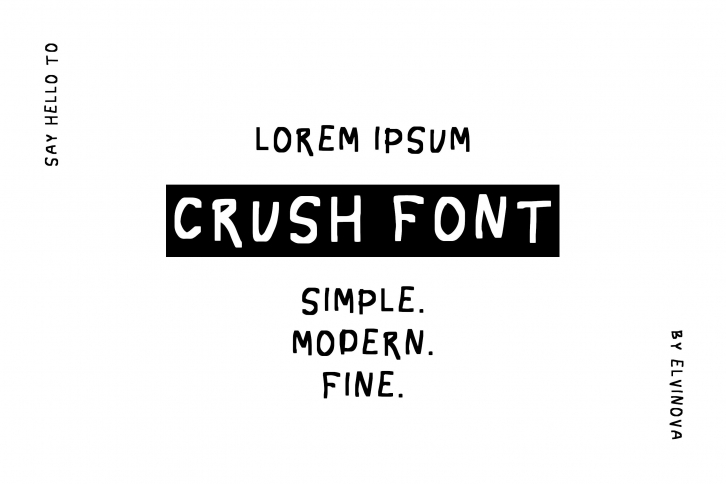
Introducing the Crush font. Simple and fine. The hand lettered brush font is perfectly suited to quotes, branding, signature, packaging design, stationery, website design and more.